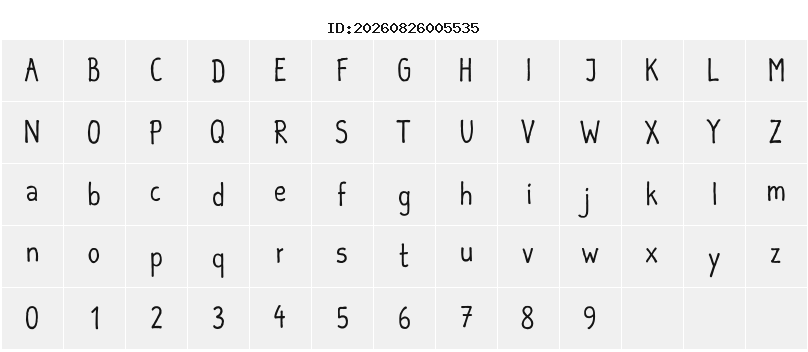
SEBASTIAN_INFORMAL Preview
About SEBASTIAN_INFORMAL.otf
SEBASTIAN_INFORMAL.otf is a modern, elegant sans-serif font designed for ultimate readability and visual harmony. Perfect for branding, headlines, web design, and print materials.